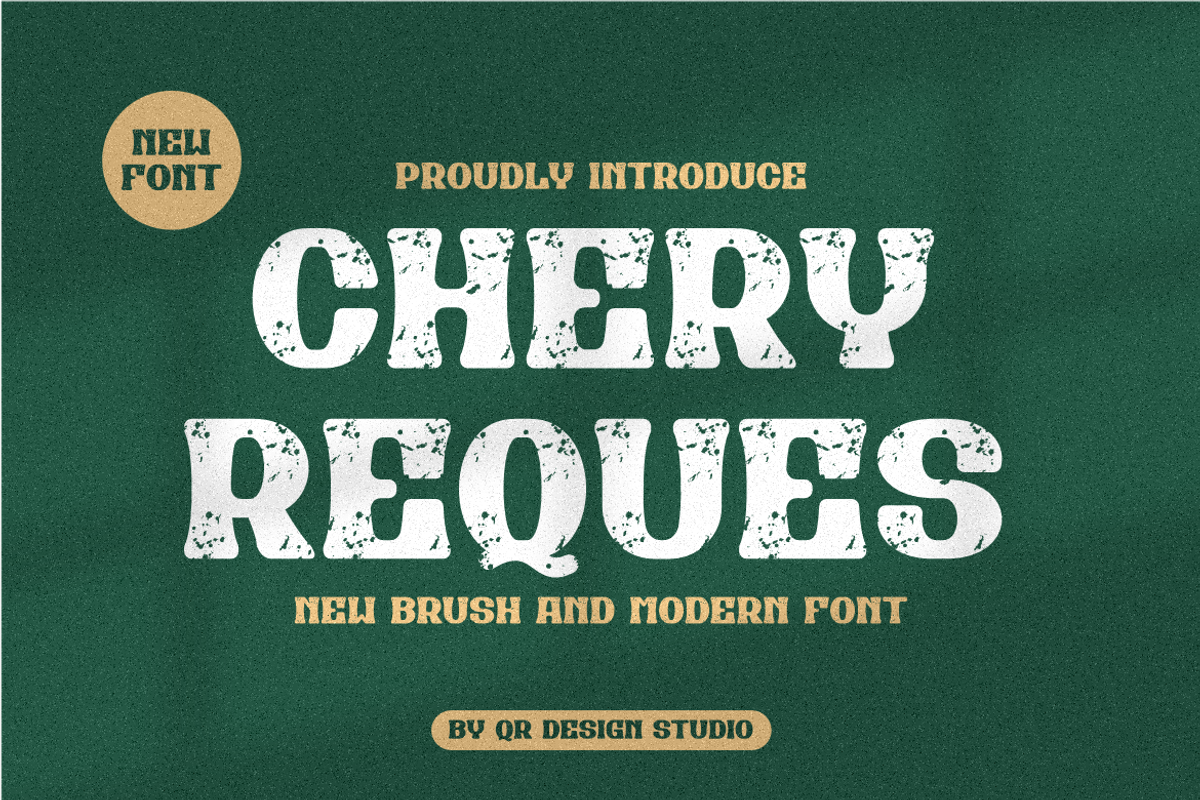
Chery Reques - Grunge Font Free Download
Chery Reques – Grunge Font Free Download
Chery Reques – Grunge Font Free Download is a raw and rugged typeface that channels the rebellious spirit of underground culture, distressed textures, and alternative design. With its rough edges, irregular strokes, and worn-down details, this font is perfect for band posters, edgy branding, streetwear labels, zines, album covers, and any project that thrives on grit and attitude.
Chery Reques adds an authentic, handcrafted vibe to your typography—looking as if it’s been scratched, stamped, or dragged across a concrete wall. It's bold, emotional, and built to stand out in loud, expressive visual work.
Unleash the grunge and let your design scream with the untamed energy of Chery Reques.